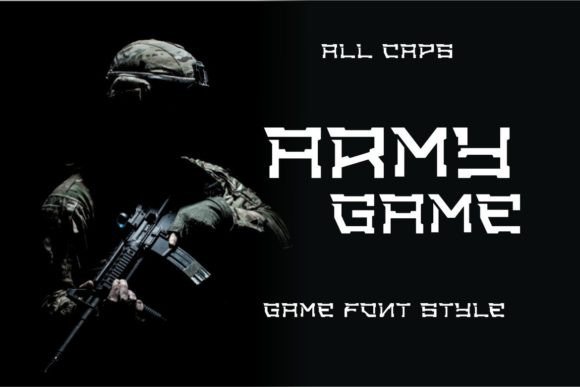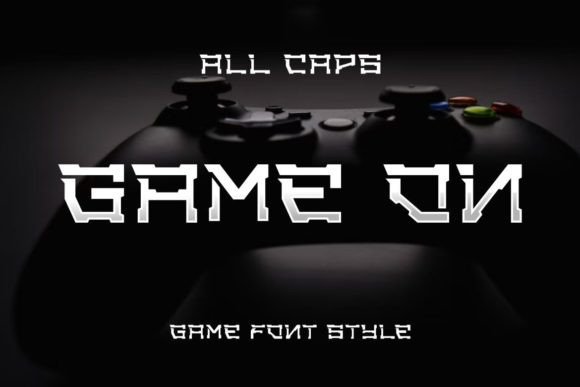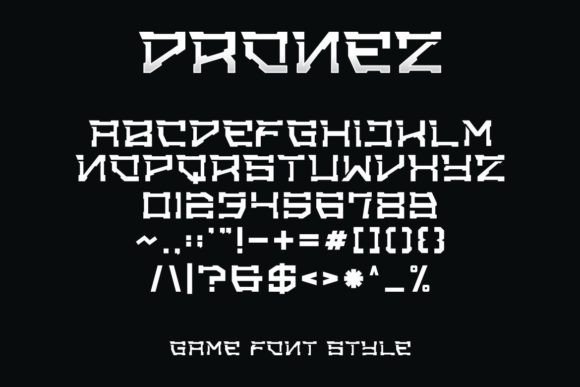
I still remember the frustration of working on a futuristic branding project, only to get stuck on finding the right font. My client wanted something sleek, modern, and edgy, but everything I found seemed either too bland or too over-the-top. That’s when I stumbled upon Dronez Font, a clean and contemporary display font that changed the game. In this article, I’ll share my experience with Dronez, its features, and how to make the most of it in your designs.
First Impressions: A Love Affair with Dronez
Dronez Font immediately caught my attention with its minimalist design and geometric shapes. Its sleek lines and futuristic feel make it perfect for modern branding and projects that require a cutting-edge look. Here’s what I love about Dronez:
- ✨ Clean and simple design: Dronez is easy to read and versatile, making it suitable for various applications.
- ✅ Geometric shapes: The font’s geometric shapes give it a distinctively futuristic feel that’s hard to achieve with other fonts.
- 💡 Excellent for headlines and titles: Dronez Font is designed for display purposes, making it perfect for grabbing attention and setting the tone for your project.
The Not-So-Perfect Font: A Few Quirks
While Dronez Font is an excellent choice for many projects, it’s not without its limitations. Here are a few things to keep in mind:
- 🤔 Limited use for body text: Due to its clean and minimalist design, Dronez might not be the best choice for lengthy body text. It’s primarily designed for headlines and titles.
- ⚠️ No extensive language support: Dronez Font might not support a wide range of languages, so make sure to check its compatibility before using it for multilingual projects.
The Story Behind Dronez
Dronez Font was designed by a team of creatives who wanted to create a font that embodies the spirit of modernity and futurism. Inspired by the sleek lines and geometric shapes of drone technology, they crafted a font that’s both clean and cutting-edge.
| Font Name | Dronez Font |
| Author | onotype |
| What is Dronez Font best used for? | Dronez Font is perfect for modern branding, futuristic projects, and display purposes, such as headlines and titles. |
| Is Dronez Font suitable for body text? | No, Dronez Font is primarily designed for display purposes and might not be the best choice for lengthy body text. |